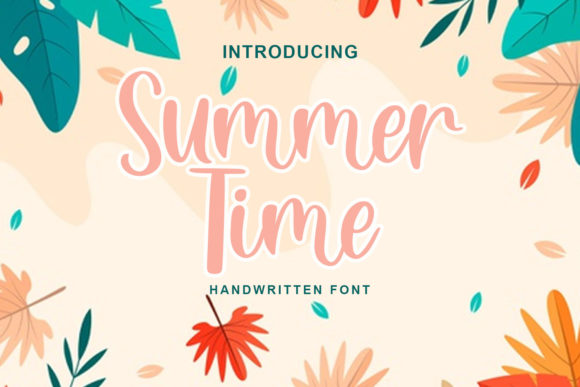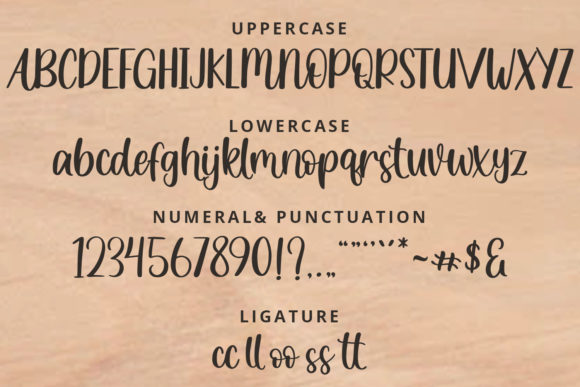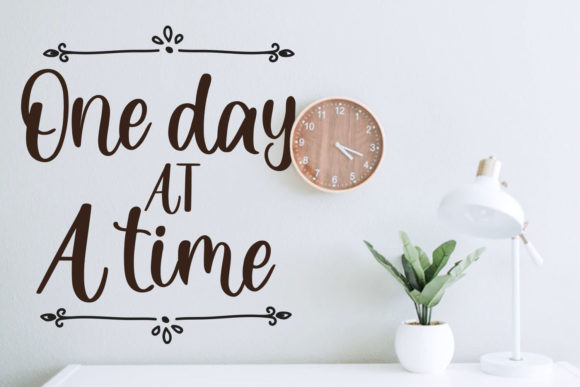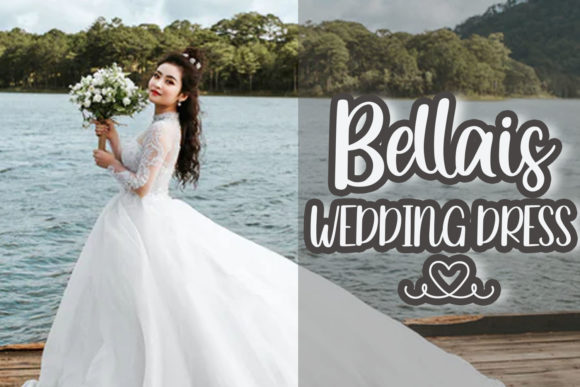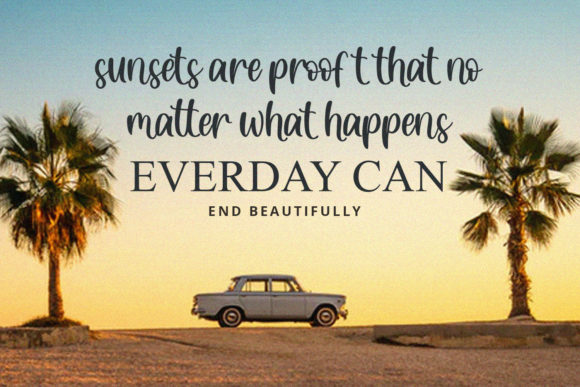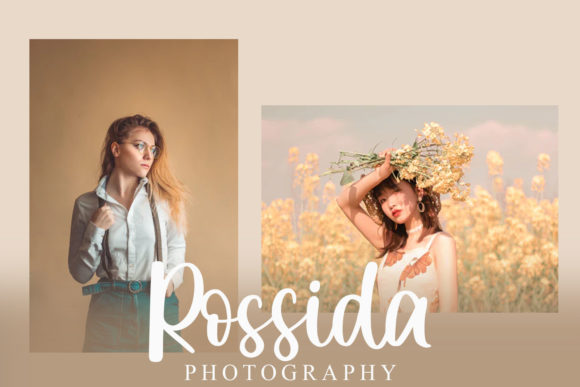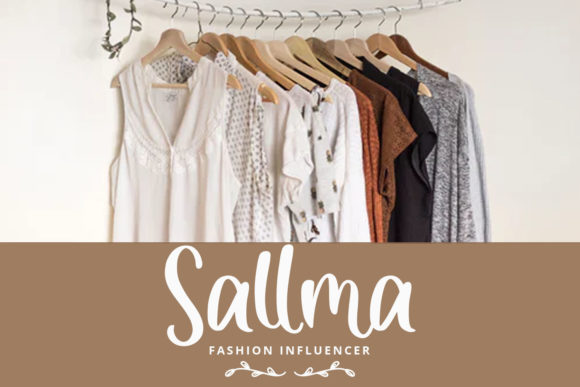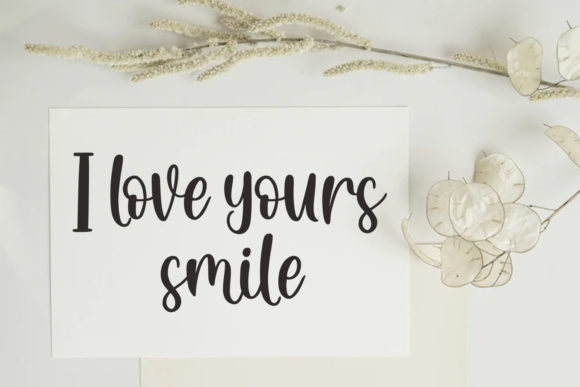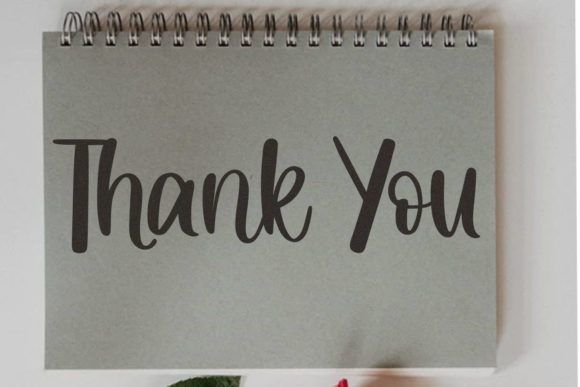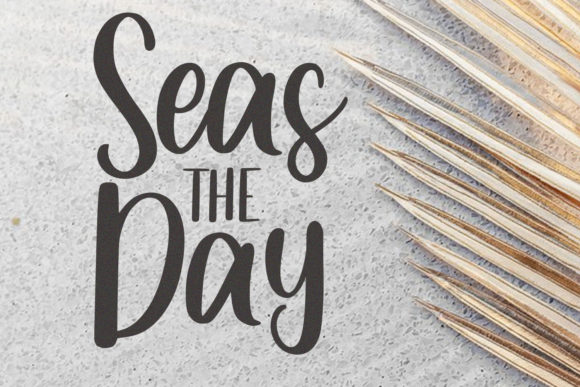
Summer Time Font
About Summer Time Font
Summer Time is an equally sophisticated and bold handwritten font that’s great for delivering any message with confidence, authenticity and charm. It will elevate a wide range of crafting ideas, from cards, to branding, labels and much more.